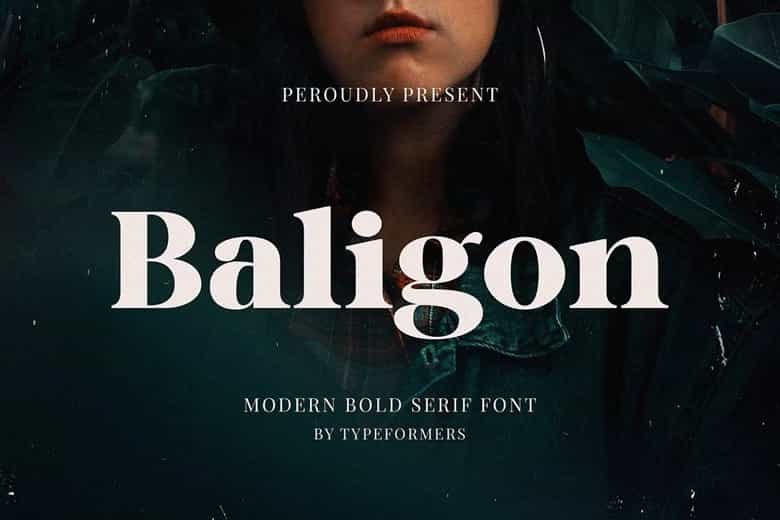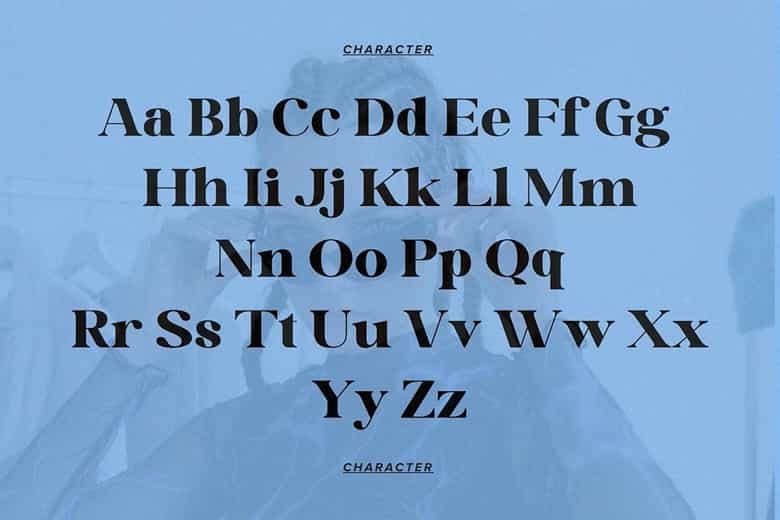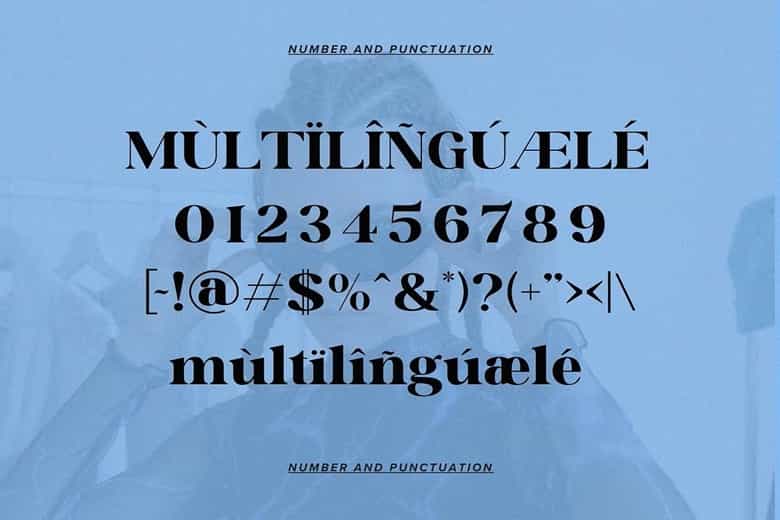
A tropical and exotic beach feeling is represented by Baligon, a classic retro themed serif typeface. This give a unique and eye catching feel to your design project by the addition of stylish ligature citation.